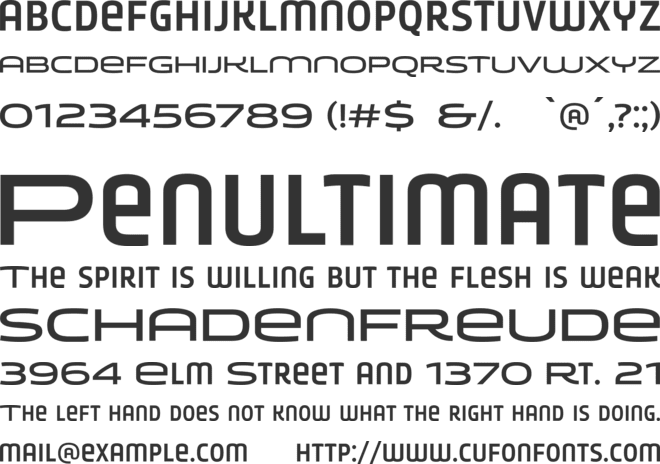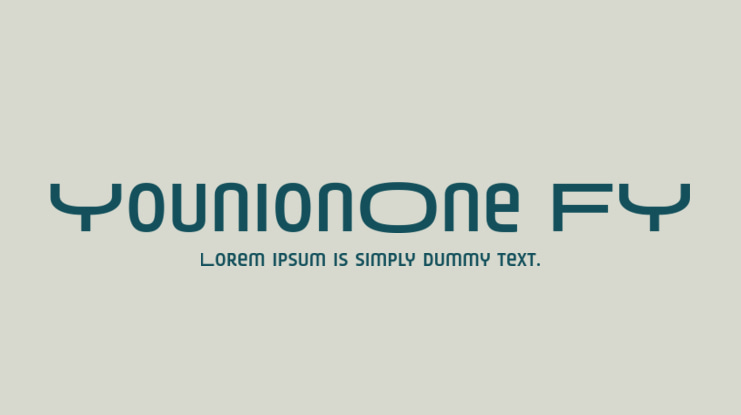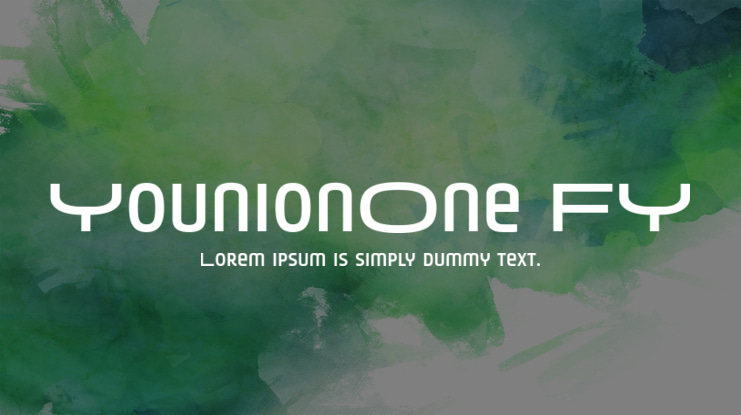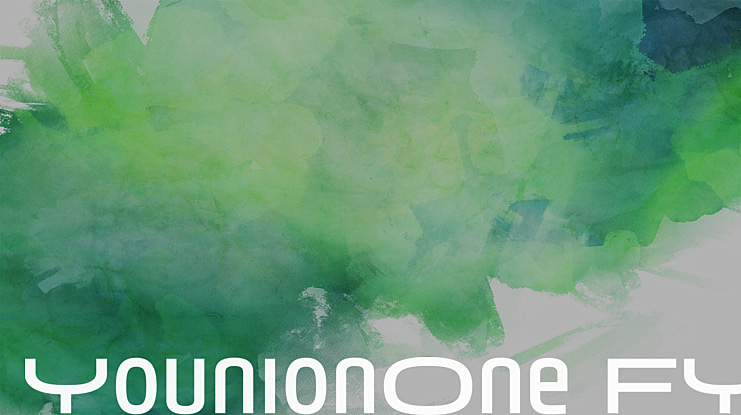
YounionOne FY Font
YOUNION FY: Two weights and three widths, more than 450 singular ligatures this sans serif display typeface offers many possible combinations for designers who enjoy playing with letters.
Designed by Gregori Vincens - Gia Tran - Alisa Nowak - Valentine Proust - Elvire Volk